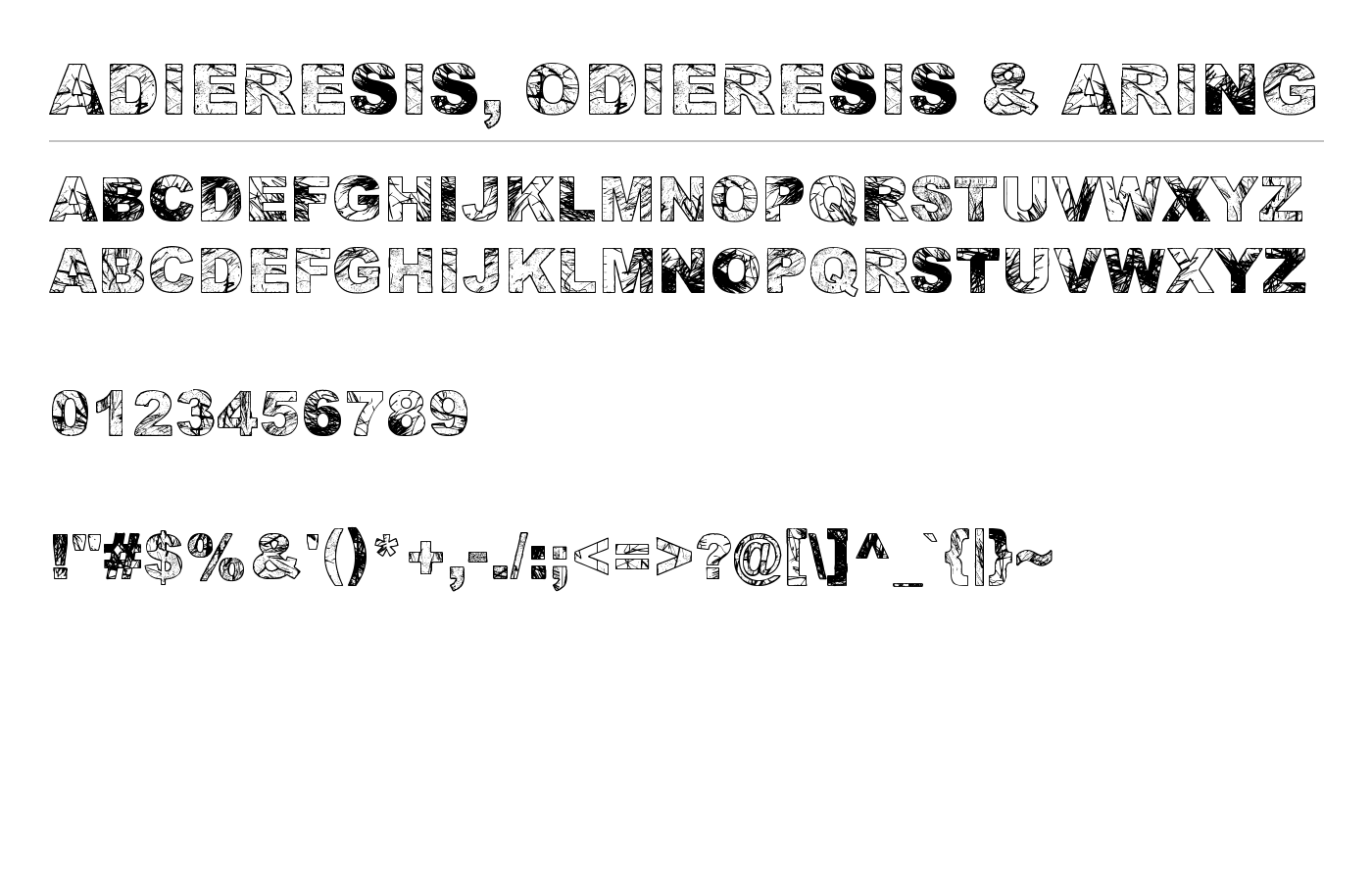
Adieresis, Odieresis & Aring is a bold, uppercase sans serif font with a distinctive cracked texture that gives it an edgy, distressed look. Its strong, blocky letterforms and uneven stroke patterns make it ideal for creative headlines, posters, and branding that seek a rugged, urban, or artistic vibe. This font works best where attention-grabbing and visual impact are key, adding character and uniqueness to any design.
Adieresis, Odieresis & Aring Font
About Adieresis, Odieresis & Aring Font
| Font family | Adieresis, Odieresis & Aring Font |